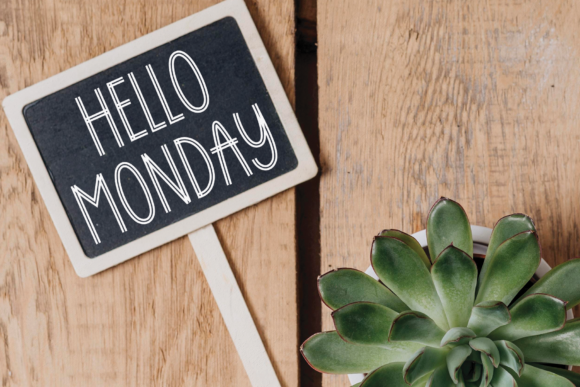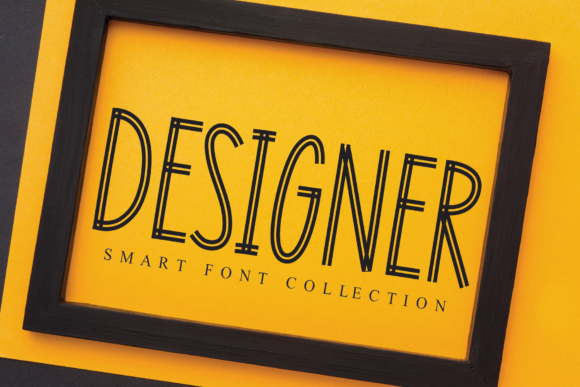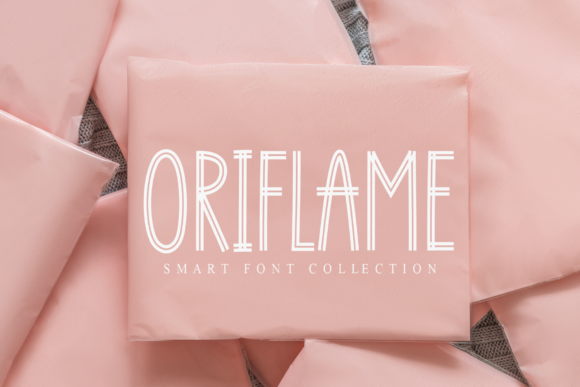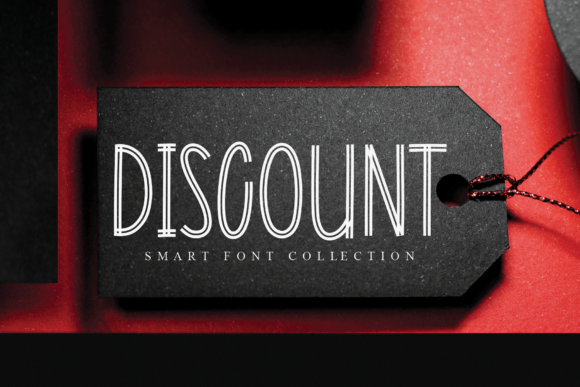
Discover the Delightful World of Happy Moment Font
Are you tired of using the same old fonts in your designs? Look no further! Happy Moment Font is here to revolutionize the way you create. This unique and interesting display font is incredibly versatile, making it perfect for a wide range of designs. With its stylish look and exceptional charm, you’ll fall in love with Happy Moment and want to use it to create spectacular designs!
The Characteristics of Happy Moment Font
Happy Moment Font boasts a distinct and captivating appearance that sets it apart from other fonts. Its stylish look is characterized by:
- Unique lettering: Each letter is carefully crafted to create a sense of joy and playfulness, making it perfect for designs that require a touch of whimsy.
- Versatile style: Happy Moment Font is incredibly versatile, allowing you to use it for a wide range of designs, from elegant and sophisticated to fun and quirky.
- Excellent legibility: Despite its unique style, Happy Moment Font remains highly legible, ensuring that your message is conveyed clearly and effectively.
Why Designers and Crafters Love Happy Moment Font
Happy Moment Font has quickly become a favorite among designers and crafters, and for good reason. Here are just a few reasons why:
- Endless creative possibilities: With Happy Moment Font, the creative possibilities are endless. Use it to create stunning posters, eye-catching social media graphics, or beautiful handmade crafts.
- Unique designs: With Happy Moment Font, you can create designs that truly stand out from the crowd. Say goodbye to boring, generic designs and hello to unique and eye-catching creations.
Perfect for a Wide Range of Designs
Happy Moment Font is incredibly versatile, making it perfect for a wide range of designs, including:
- Posters and flyers: Create stunning posters and flyers that grab attention and leave a lasting impression.
- Social media graphics: Use Happy Moment Font to create eye-catching social media graphics that help you stand out from the crowd.
- Handmade crafts: Add a touch of personality to your handmade crafts, such as cards, scrapbook pages, and journal entries.
- Branding and packaging: Use Happy Moment Font to create unique and memorable branding and packaging designs that help your business stand out.
Tips for Getting the Most Out of Happy Moment Font
To get the most out of Happy Moment Font, try the following tips:
- Experiment with different colors: Happy Moment Font looks great in a variety of colors, so don’t be afraid to experiment and find the perfect hue for your design.
- Play with font sizes: Happy Moment Font is highly legible, even at smaller font sizes. Experiment with different font sizes to add visual interest to your design.
- Combine with other fonts: Happy Moment Font pairs well with a variety of other fonts. Try combining it with a sans-serif font for a bold and modern look.